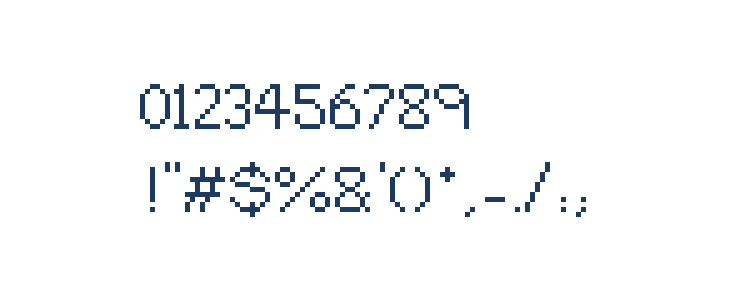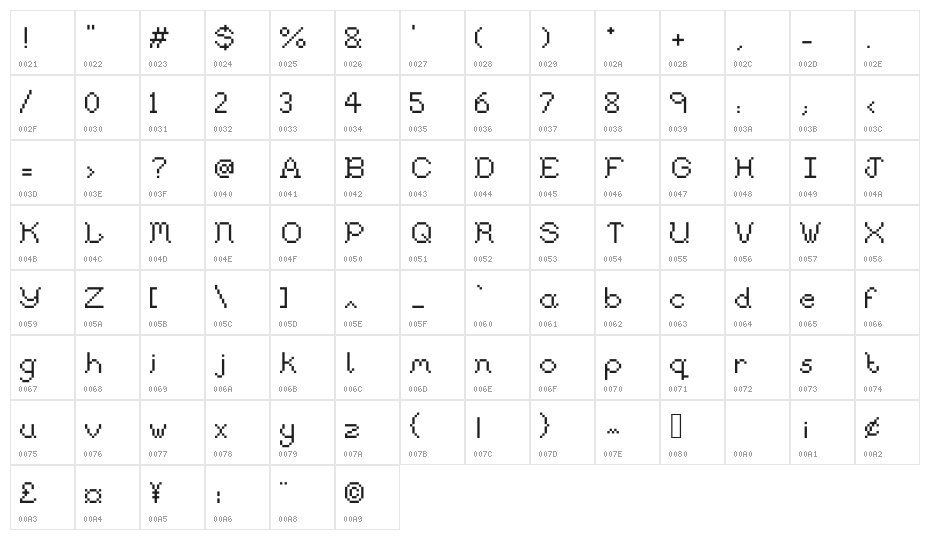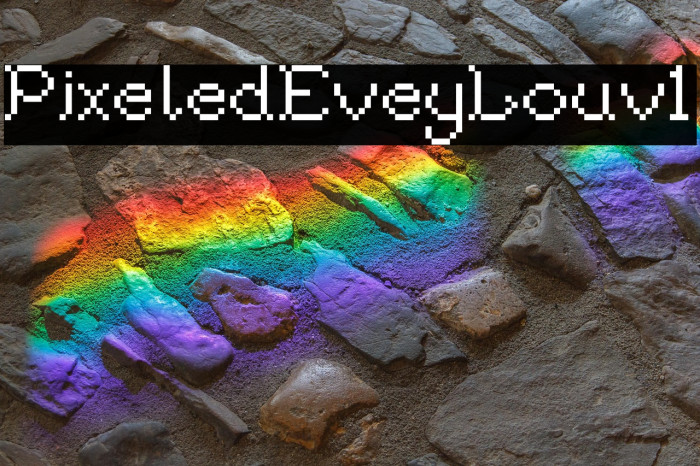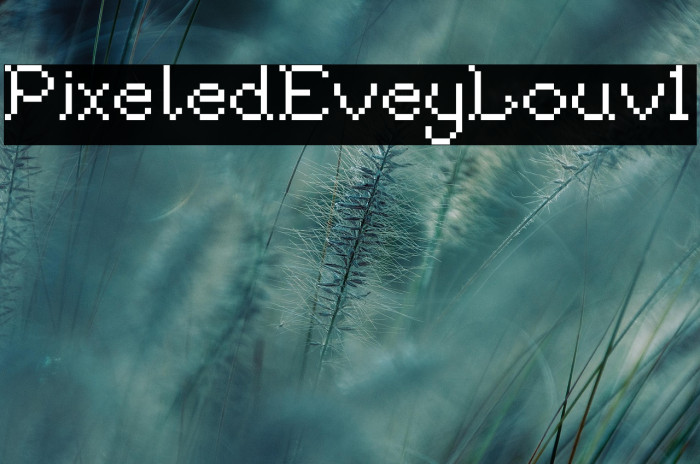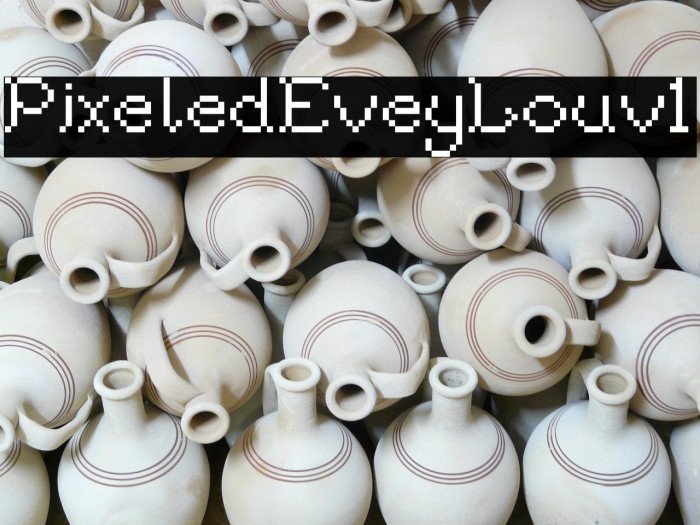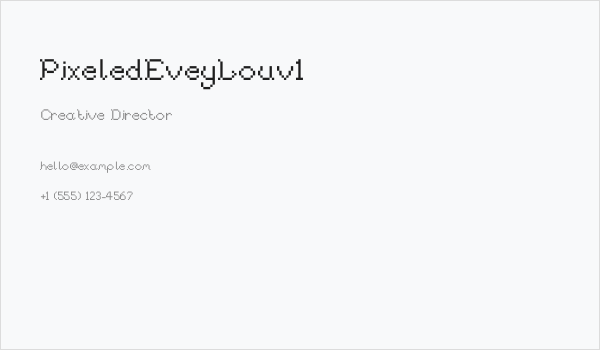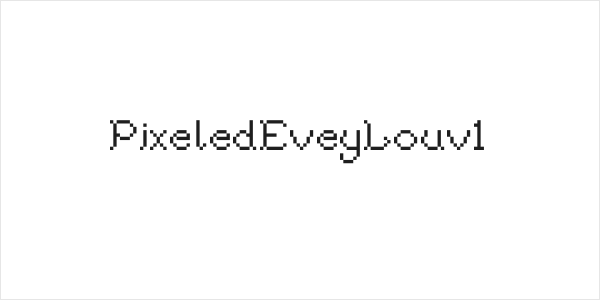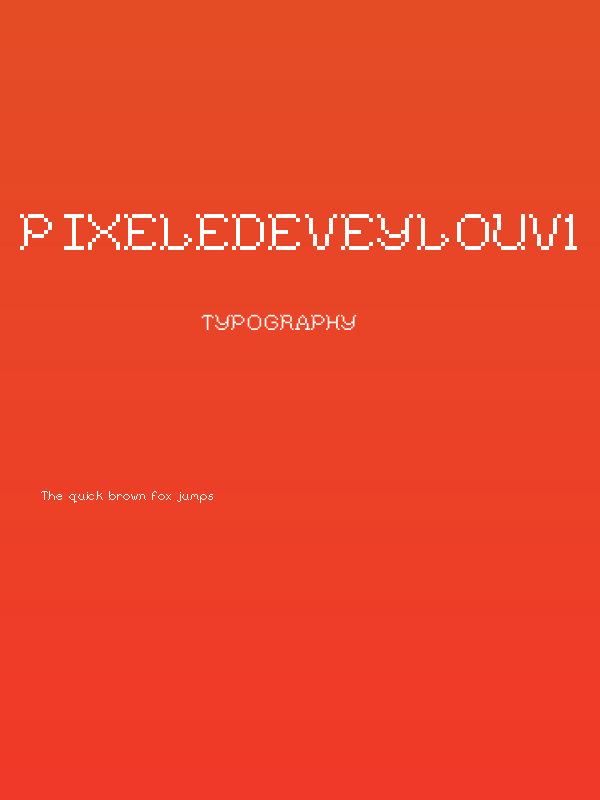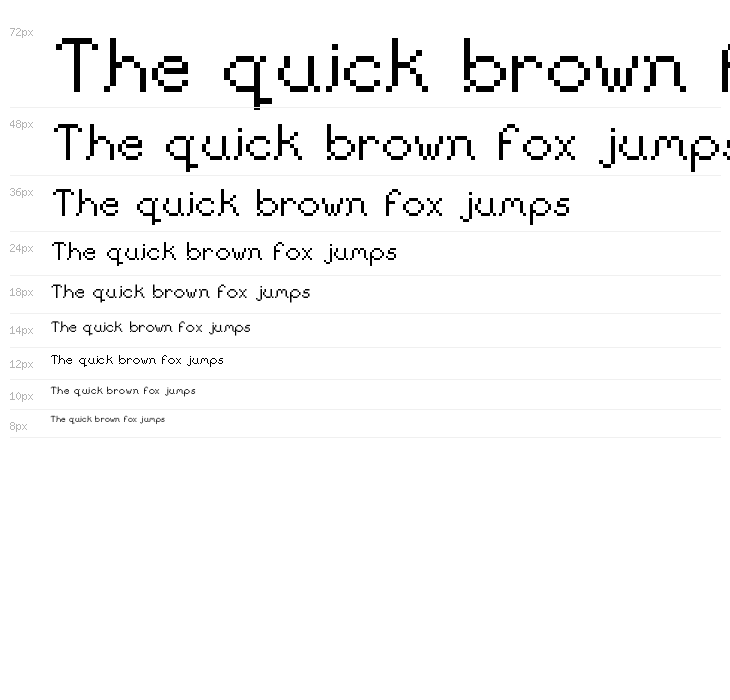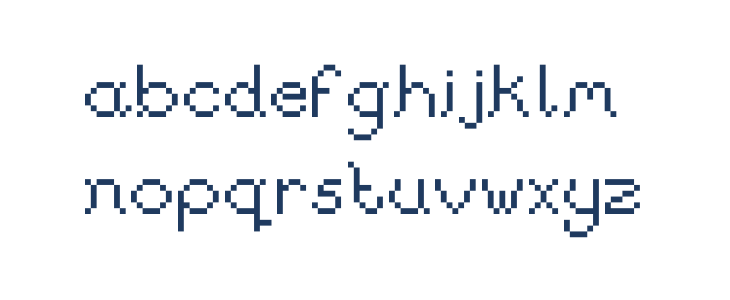
PixeledEveyLouv1 Font
PixeledEveyLouv1 Description
This font features a pixelated design, reminiscent of early digital displays and retro video games. Each character is constructed with a grid-like structure, giving it a blocky and geometric appearance. The uniformity in the pixel size across all characters creates a cohesive and nostalgic aesthetic. The uppercase and lowercase letters maintain a consistent height, while the numerals and special characters follow the same pixelated style, ensuring readability and a playful vibe. This font's distinct style makes it ideal for projects that aim to evoke a sense of nostalgia or embrace a digital, tech-inspired theme.
| Overall Style | Retro, Digital |
| Proposed Projects | Ideal for retro video game graphics, digital art projects, tech-themed posters, and nostalgic branding. |